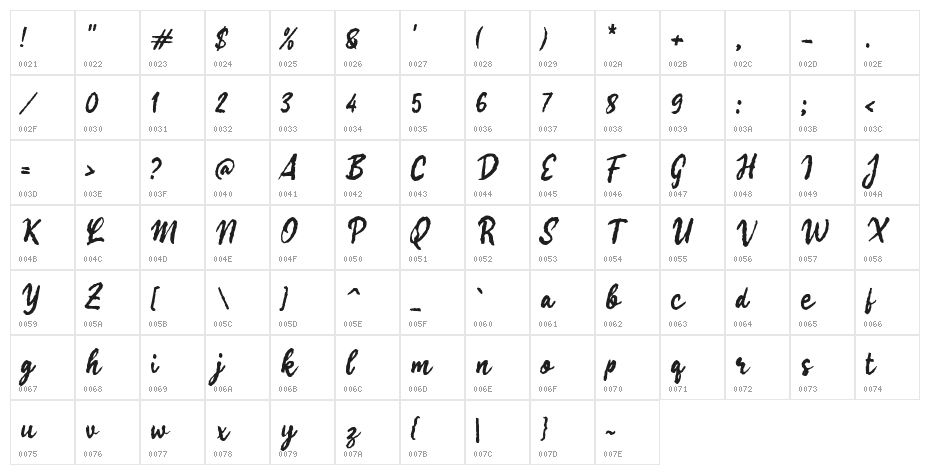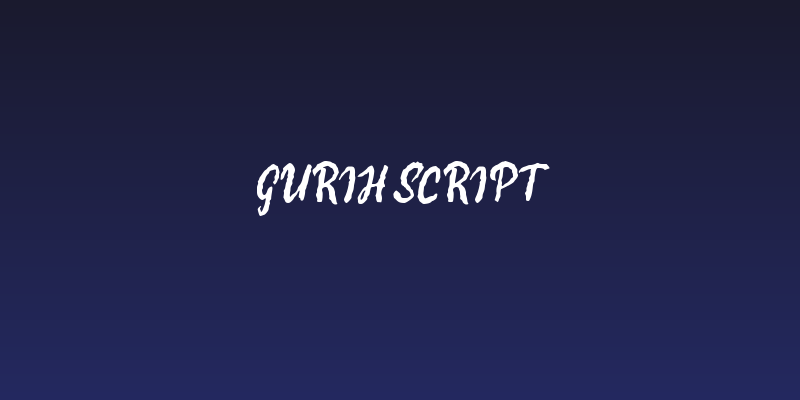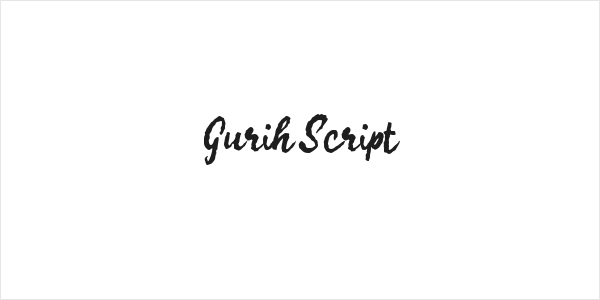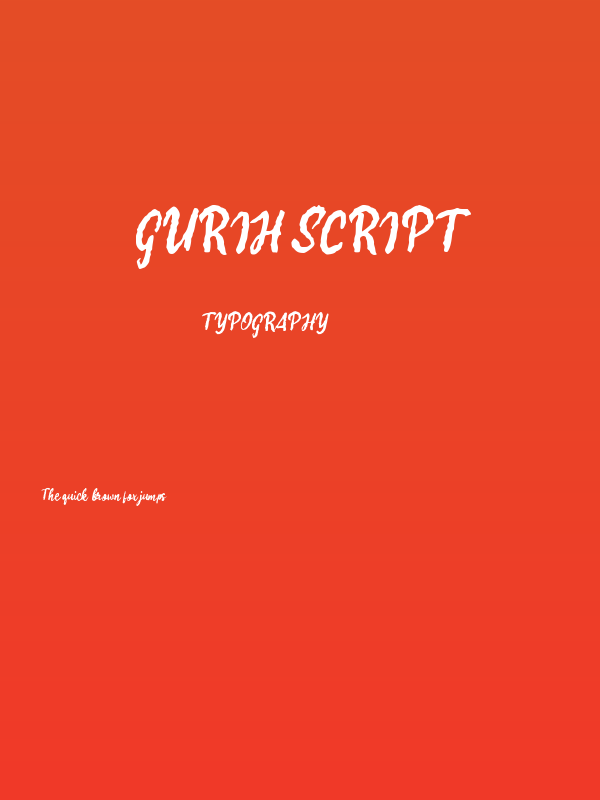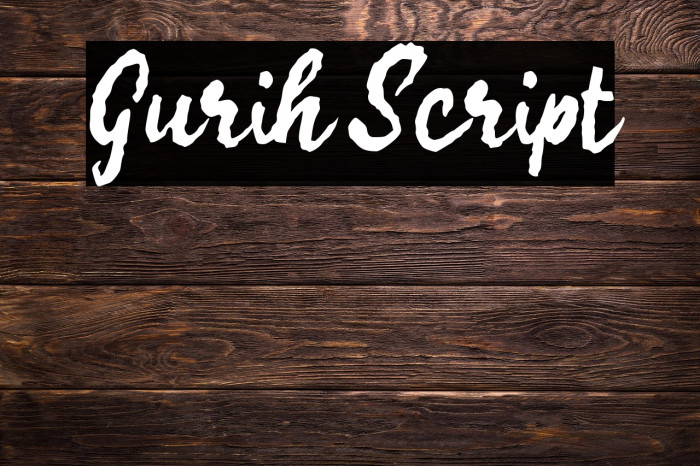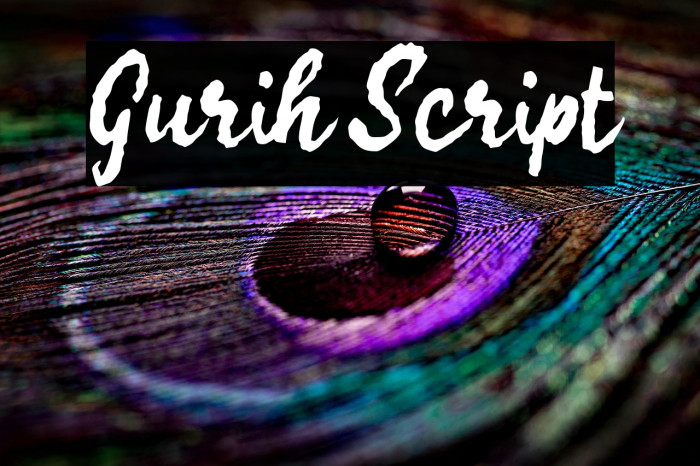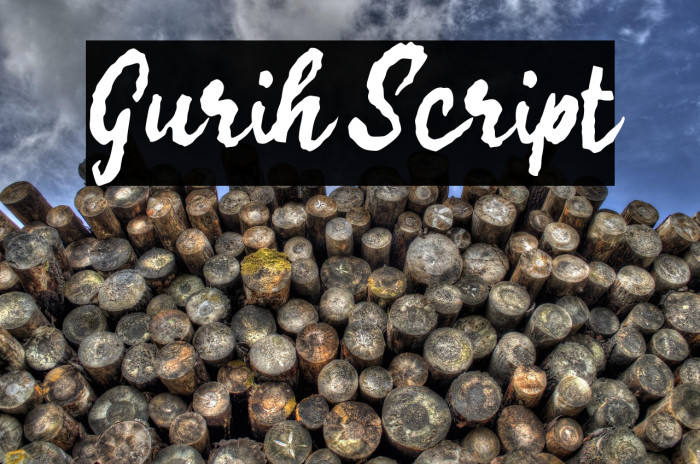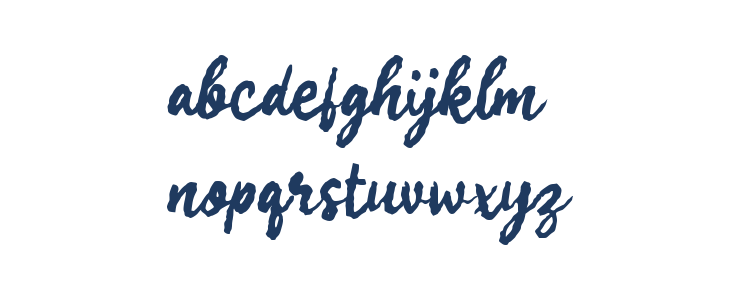
Gurih Script Font
Gurih Script Description
This font exudes a bold and expressive character with its brush-like strokes and dynamic flow. The uppercase letters are robust and slightly slanted, giving a sense of movement and energy. The lowercase letters maintain a consistent style, with smooth curves and a natural handwritten feel. Numbers and special characters follow the same aesthetic, ensuring a cohesive look across all text. The overall appearance is artistic and lively, making it suitable for projects that require a personal touch.
| Proposed Projects | Ideal for creative projects such as invitations, greeting cards, branding, and artistic posters. |